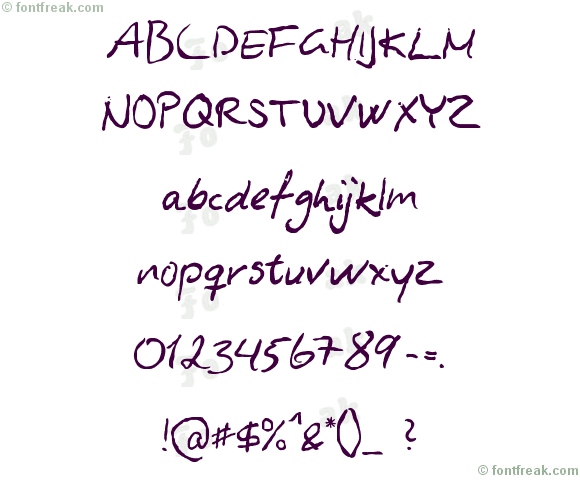
Asphyxiate Regular
About Asphyxiate Regular
Asphyxiate Regular, designed by Espen Morten Kvalheim, is a captivating handwritten font that brings a unique flair to any design project. This freeware font belongs to the script category, making it ideal for those looking to infuse a personal touch into their typography. The font showcases a fluid, cursive style with varying stroke weights that convey a sense of spontaneity and creativity. The design features smooth curves and a playful rhythm, making it visually engaging while maintaining legibility.
One of the standout characteristics of Asphyxiate Regular is its charming irregularities, which add to its handwritten appeal. The spacing between letters is thoughtfully balanced, ensuring that each character can stand out while still forming cohesive words. This quality makes the font suitable for a range of applications. It can elevate wedding invitations with its romantic flair, add personality to restaurant menus, or create eye-catching movie posters that demand attention. Additionally, it works well for greeting cards and social media graphics, making it a versatile choice for any creative endeavor.
The target audience for this font includes graphic designers, small business owners, and content creators who seek to express individuality in their projects. With its unique aesthetic, Asphyxiate Regular offers an opportunity to stand out in a crowded marketplace.